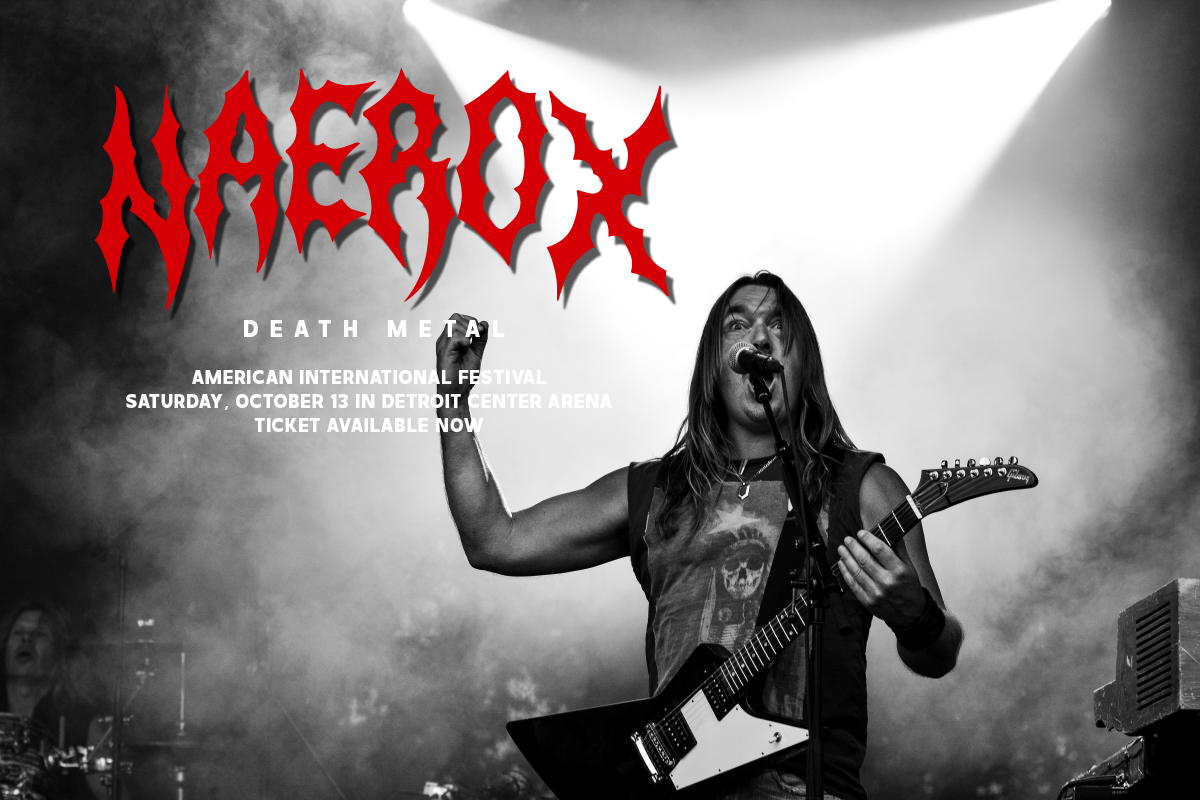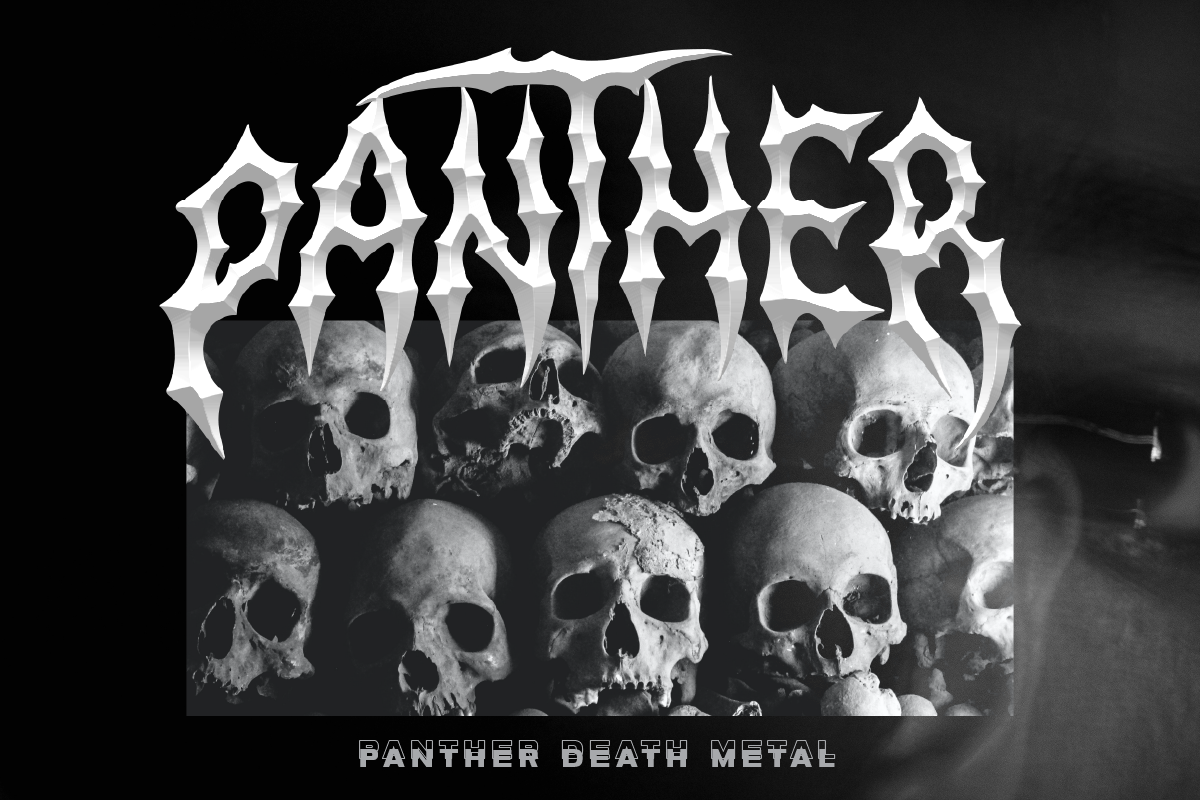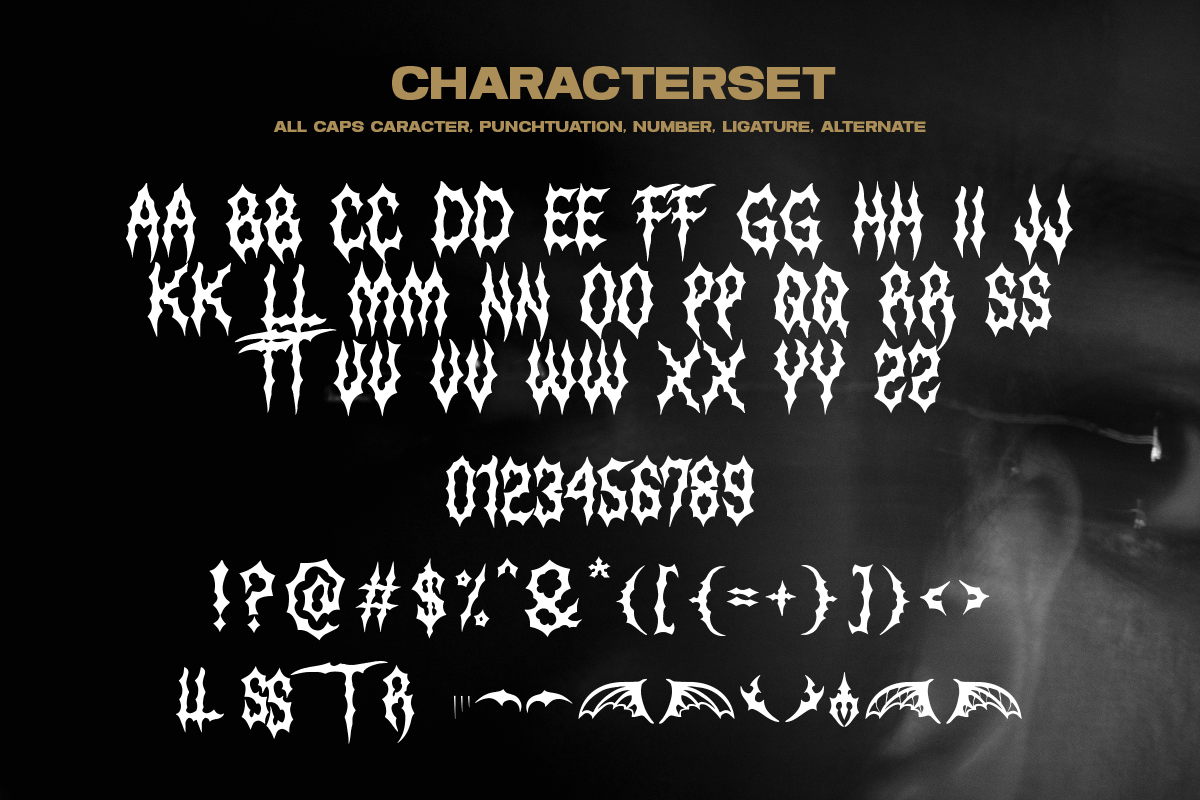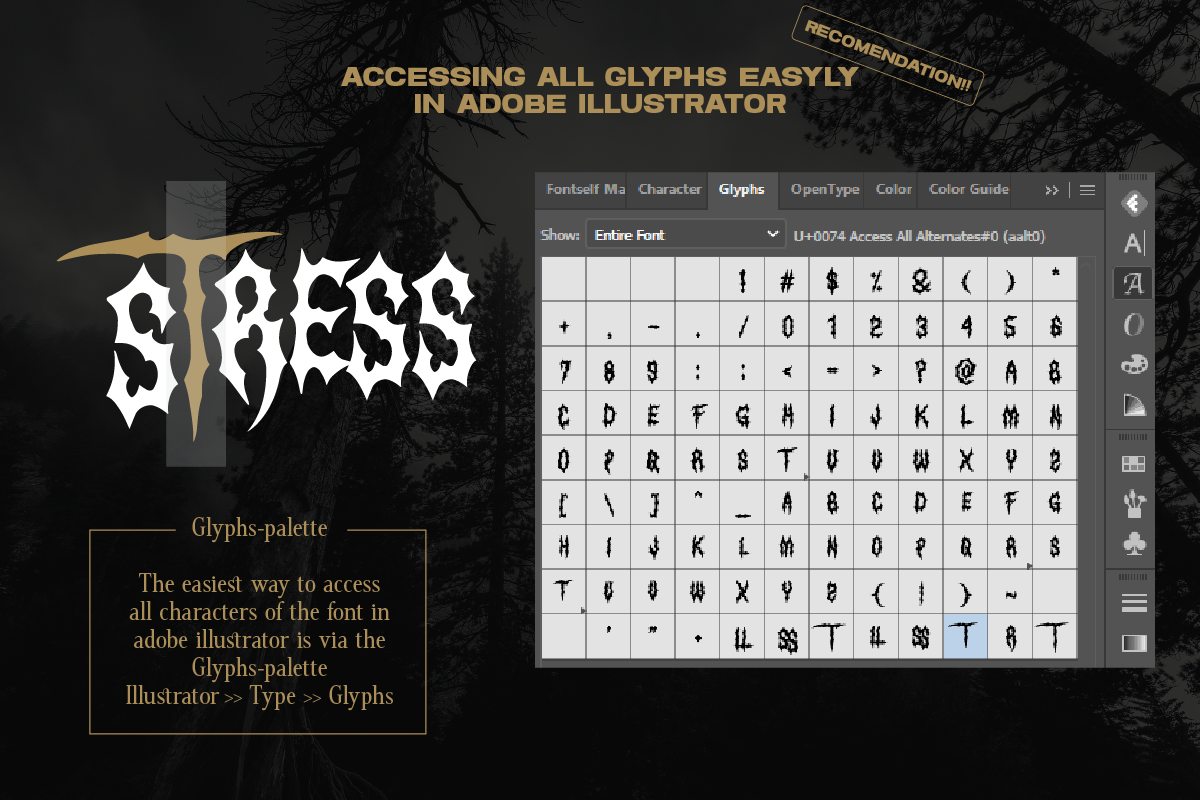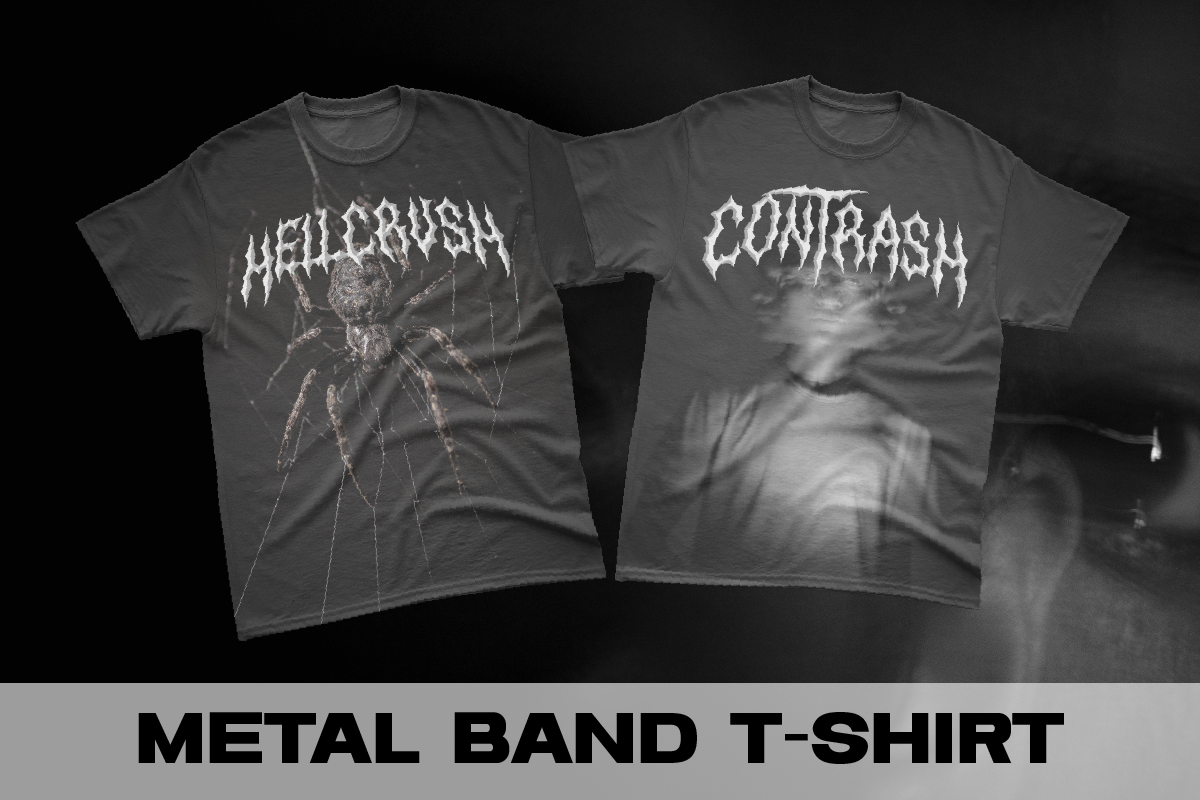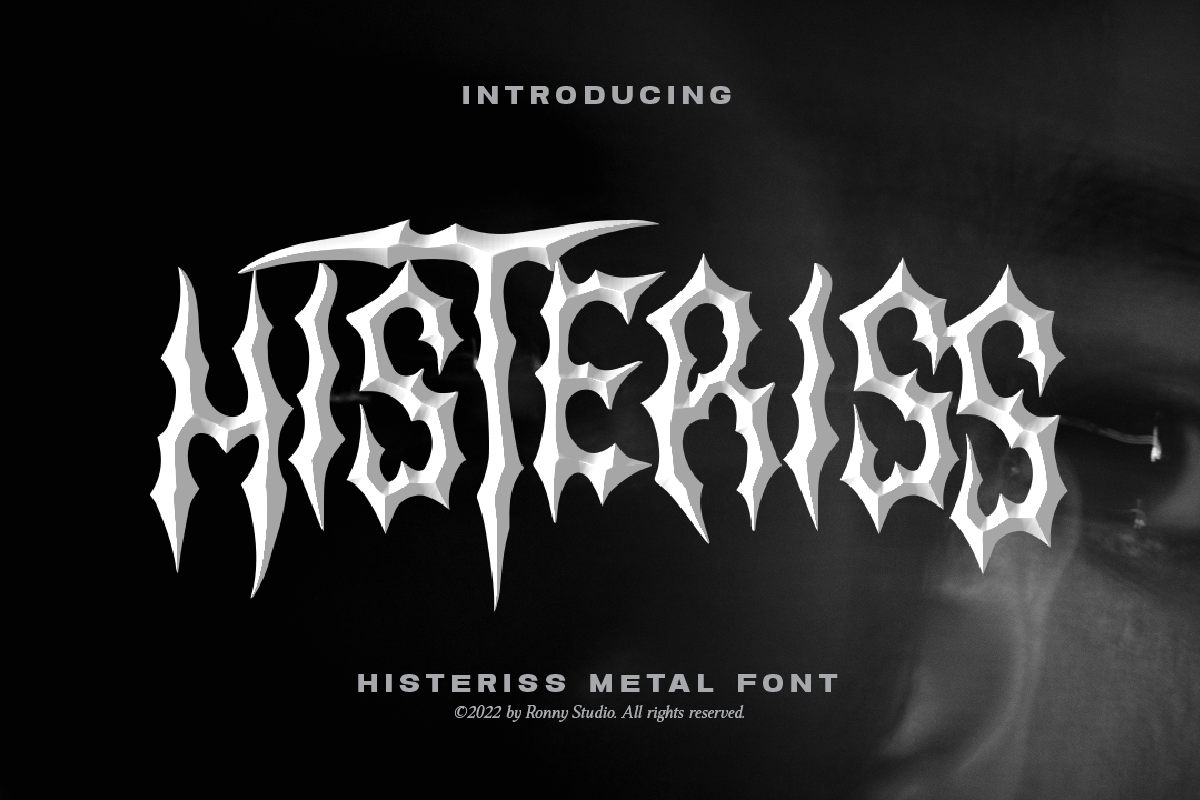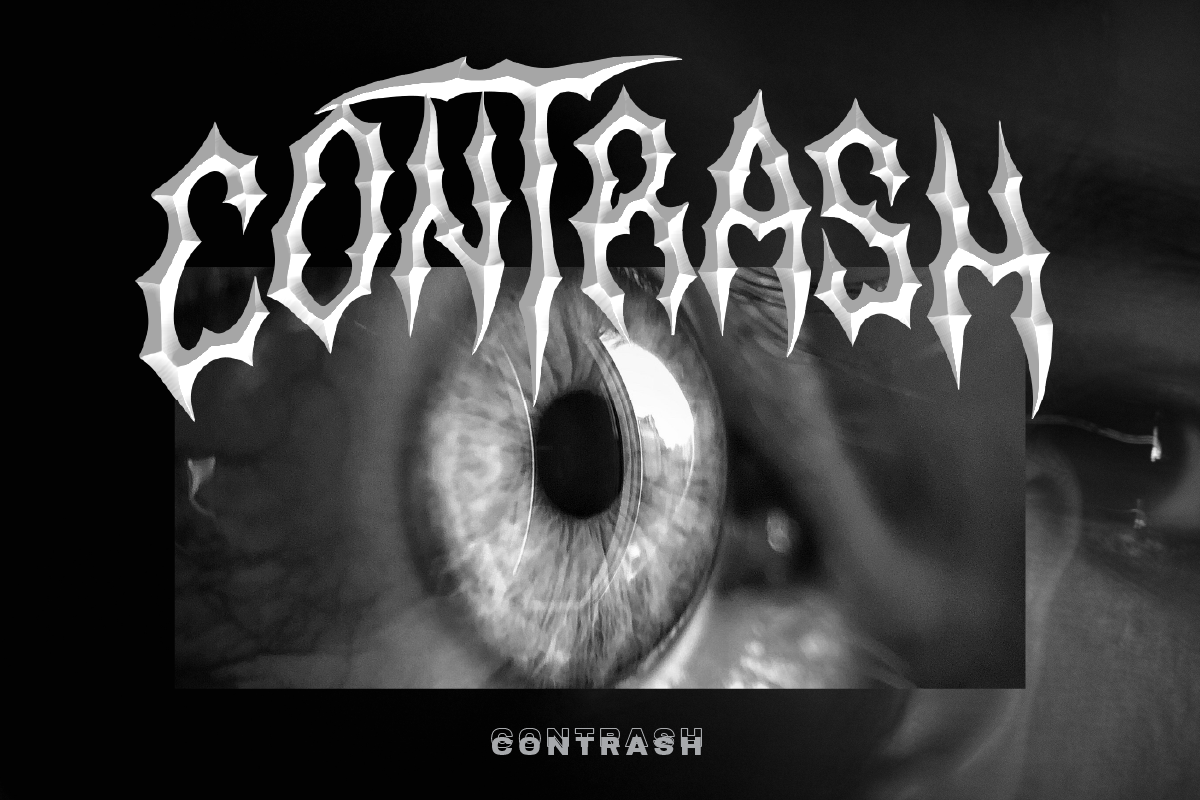
Histeriss Heavy Metal Font
Histeriss – Heavy Metal Font for Bold, Aggressive, and Underground Designs
Introducing Histeriss, a bold and aggressive heavy metal font crafted for those who want to make a statement. Inspired by the raw energy of metal music and underground culture, Histeriss features sharp, jagged letterforms with a rebellious attitude. Perfect for band logos, album covers, posters, merchandise, and extreme branding, this font brings intensity and character to your designs.
With its striking and edgy aesthetic, Histeriss ensures that your typography stands out and delivers a strong impact.
- Heavy Metal Style – Bold, jagged letterforms with a rugged, rebellious vibe.
- Complete Character Set – Includes uppercase, lowercase, numerals, punctuation, and multilingual support.
- PUA Encoded – Full access to all special characters and alternates without extra design software.
- Versatile Applications – Ideal for band logos, album artwork, posters, merchandise, social media, and more.
- Heavy metal and underground band branding
- Album covers, tour posters, and promotional materials
- Merchandise such as t-shirts, hoodies, and stickers
- Extreme sports branding and edgy product packaging
- Social media marketing for metal and rock scenes
- Projects that demand a bold, intense, and aggressive typography style
Let Histeriss amplify the power and attitude of your designs.